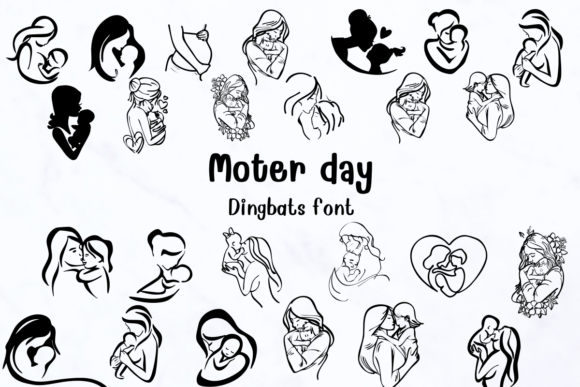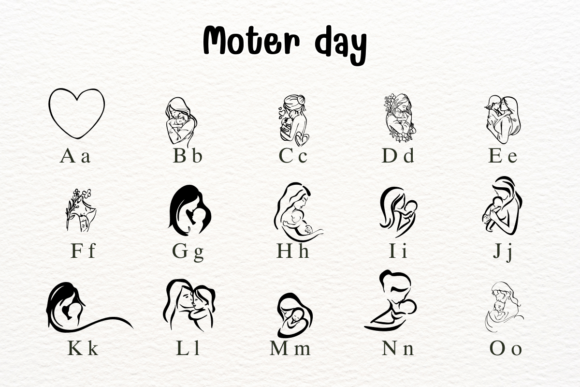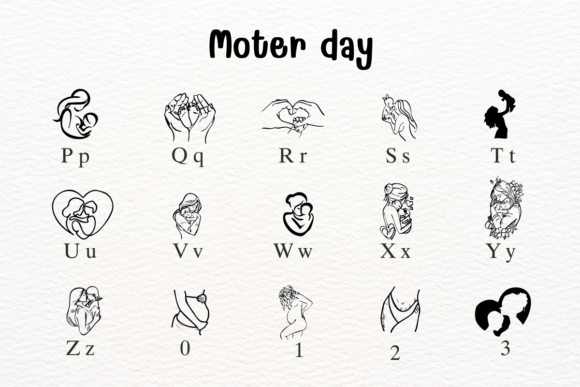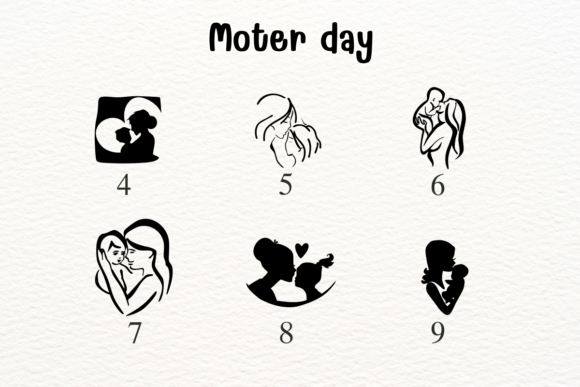
Mother Day Font
About the Mother Day Font
Experience the unique personality of Mother Day Font, a font designed for impact. Mother day is a dingbats font with a sentimental theme. This font can enhance your creative projects such as wedding invitations, DIY, crafts, decorations, logos, and many other creative ideas.
Its sentimental nature makes Mother Day Font ideal for projects requiring a touch of warmth and nostalgia, such as wedding stationery, branding for artisanal goods, or packaging for handcrafted items. It excels in applications where individual glyphs are prominent, like logos or short headlines. However, its decorative style is less suitable for extended body text or user interfaces where readability is paramount.
The font’s inherent softness pairs well with elegant serif fonts like Garamond or Didot for a classic feel, or with a modern sans-serif like Montserrat for a contemporary contrast. A script font like Great Vibes could add a flourish, while a geometric sans-serif like Futura would provide a grounding counterpoint to its organic forms.
Mother Day Font possesses a gentle, friendly personality, lending itself to brands emphasizing handmade quality, vintage aesthetics, or family-oriented values. Avoid using it where a clean, modern, or highly professional image is required.
Mother Day Font Usage Examples
Mother Day Font Example